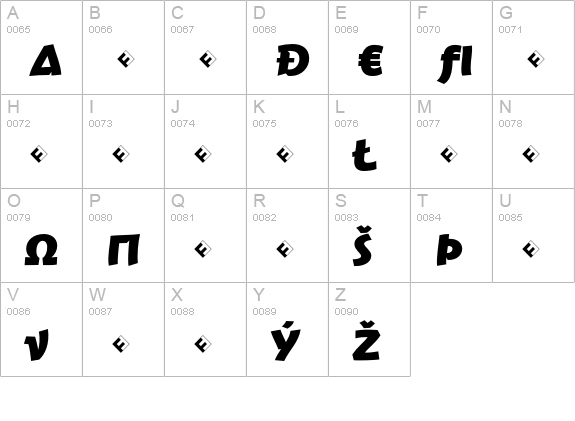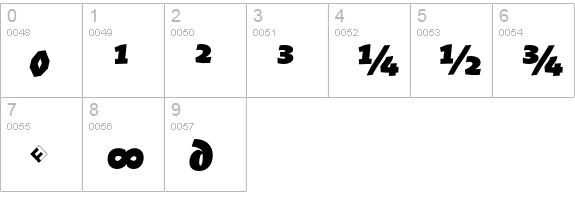
JambonoTF-BlackExpert font is a bold and expertly crafted typeface that exudes confidence and strength. With its thick and powerful letterforms, this font commands attention and makes a bold statement in any design project. The JambonoTF-BlackExpert font is perfect for headlines, logos, posters, and any other design elements that require a strong and impactful visual presence. Its sharp edges and clean lines give it a modern and contemporary feel, while its weight adds a touch of elegance and sophistication. What makes this font even more appealing is the fact that it is available for free. Yes, you read that right! The JambonoTF-BlackExpert font can be freely downloaded at FontsMarket.com. This means that you can add this stunning font to your collection without spending a dime. So why wait? Go ahead and download the JambonoTF-BlackExpert font today and unleash its power in your designs. Whether you're creating a bold logo for a brand, designing eye-catching titles for a poster, or adding a touch of sophistication to a website, this font is sure to make a lasting impression. Don't miss out on the opportunity to enhance your design projects with this remarkable typeface. Get it now, for free, at FontsMarket.com!